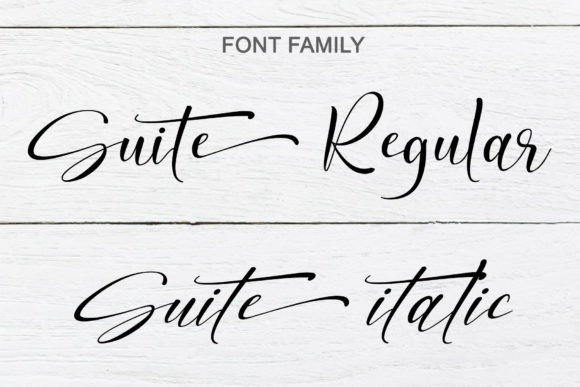
Suite Script Font is a lovely and delicate script font that exudes elegance and class. This font was particularly crafted for those who need a beautiful and refreshing look to their designs. Suite is PUA encoded which means you can access all of the glyphs and swashes with ease!